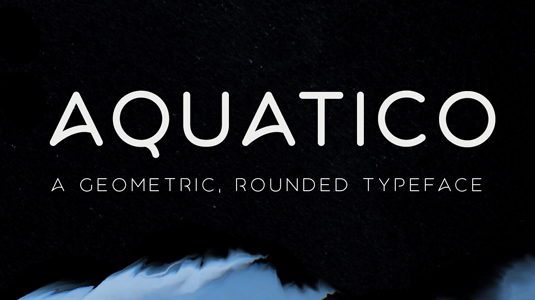
Font of the day: Aquatico
Each day of the week we showcase one of our favourite fonts – today it's Aquatico by Andrew Herndon.
Aquatico by Andrew Herndon
Graphic designer Andrew Herndon is the man behind today's typeface of choice, Aquatico. A free sans serif, Herndon says Aquatico is 'a new typeface inspired by the sea creatures of the lowest point on earth'.